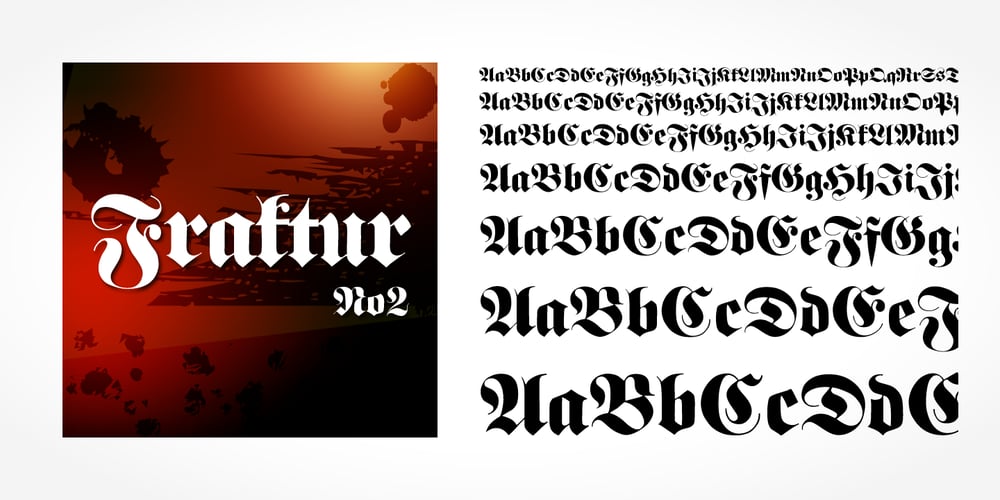
Fraktur No2 Font Family was designed by published by SoftMaker. Fraktur No2 contains 1 styles and family package options. Fraktur No2 is a blackletter typefont published by SoftMaker.